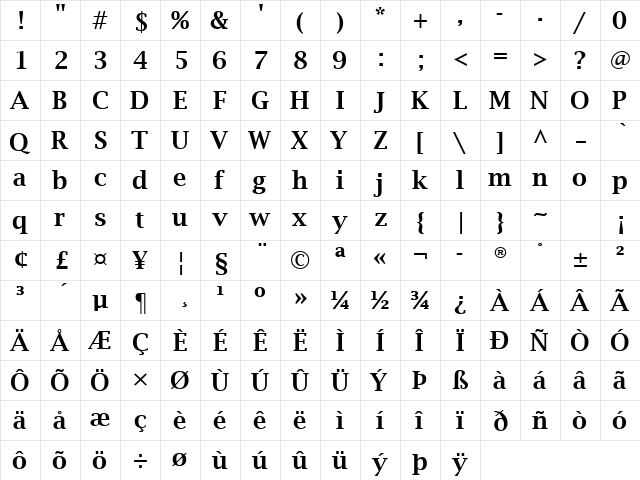
Lucida Bright Demibold Font Preview
Lucida Bright Demibold
Lucida Bright Demibold Font Details
Design Context for Lucida Bright Typeface
Lucida Bright takes a measured approach to typography — its balanced proportions and neutral character make it a reliable workhorse for both digital and print work. Its bold stroke weight gives it real presence on the page.
Pro Tip: Use Lucida Bright in both headline and body roles to test its range before committing to a single application.